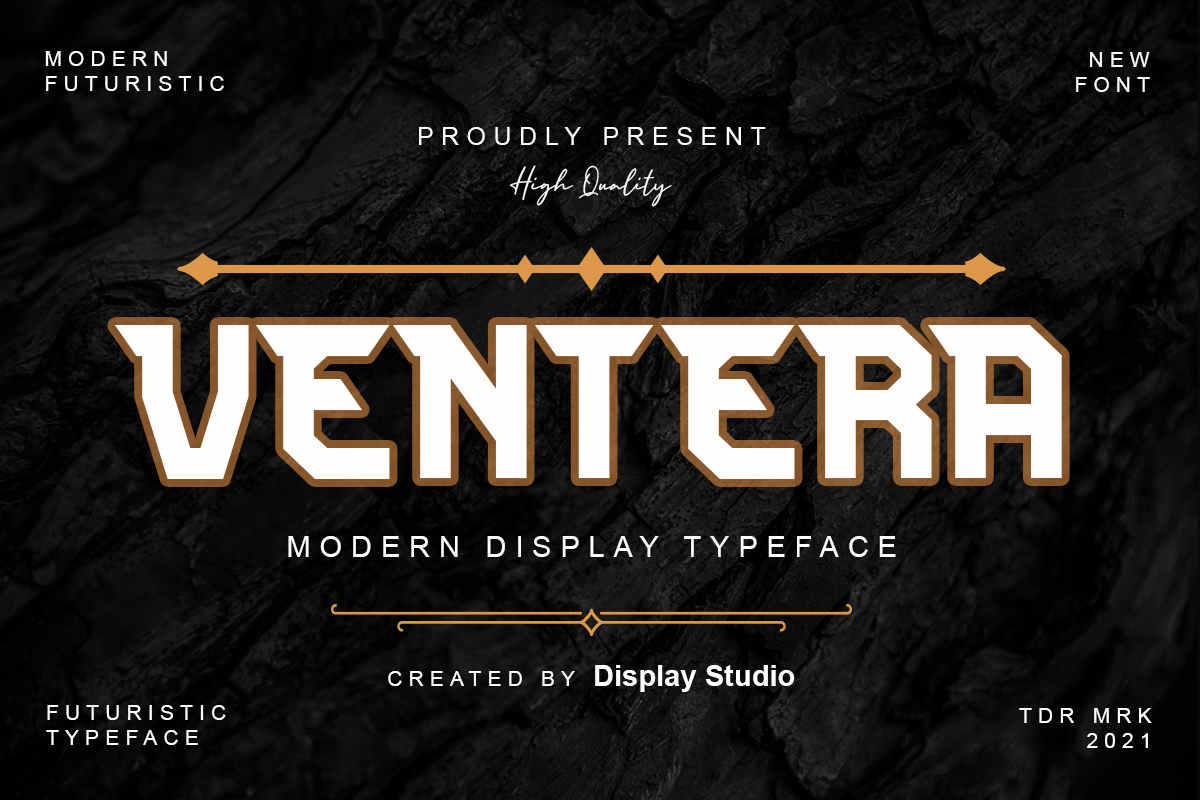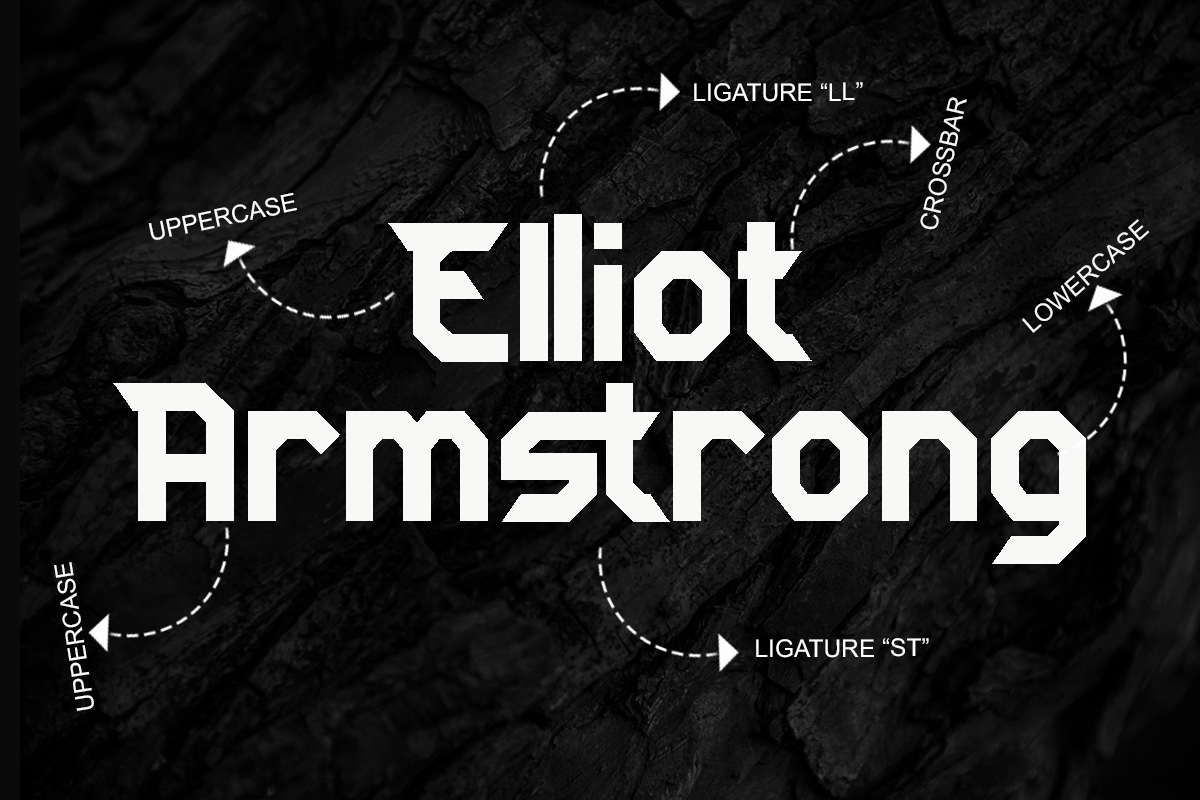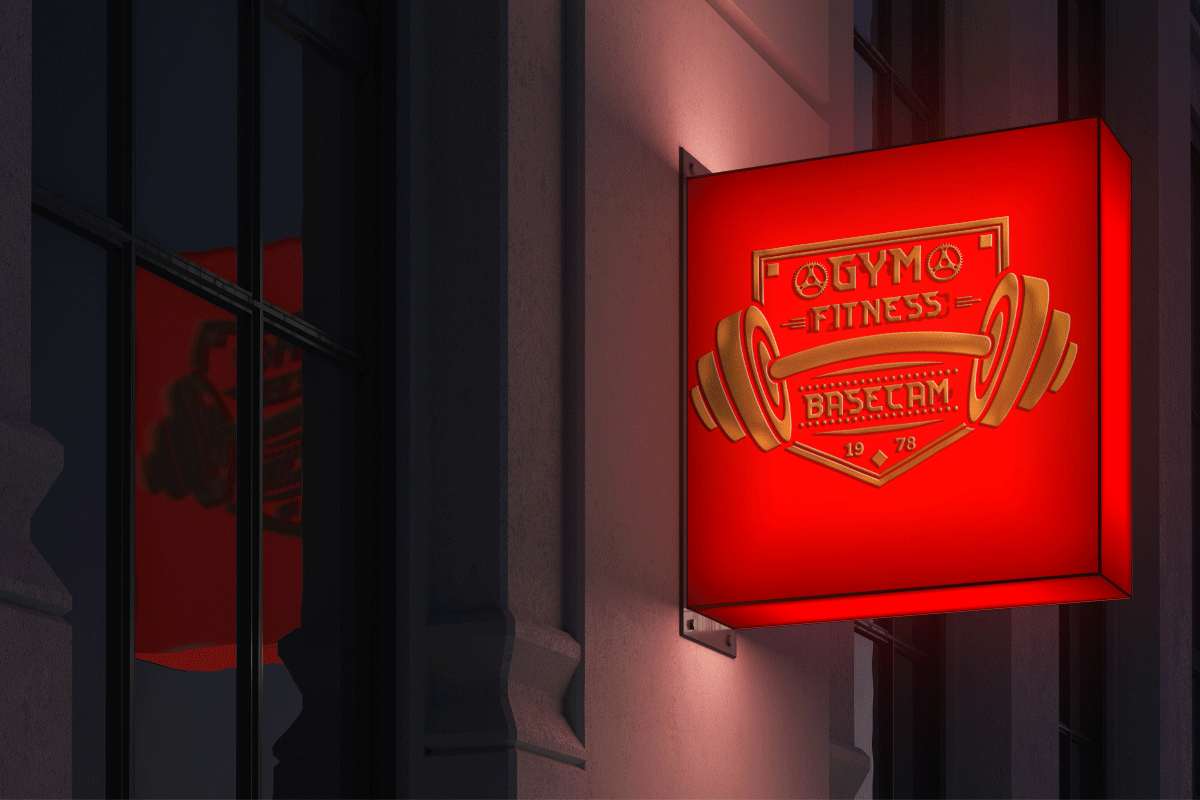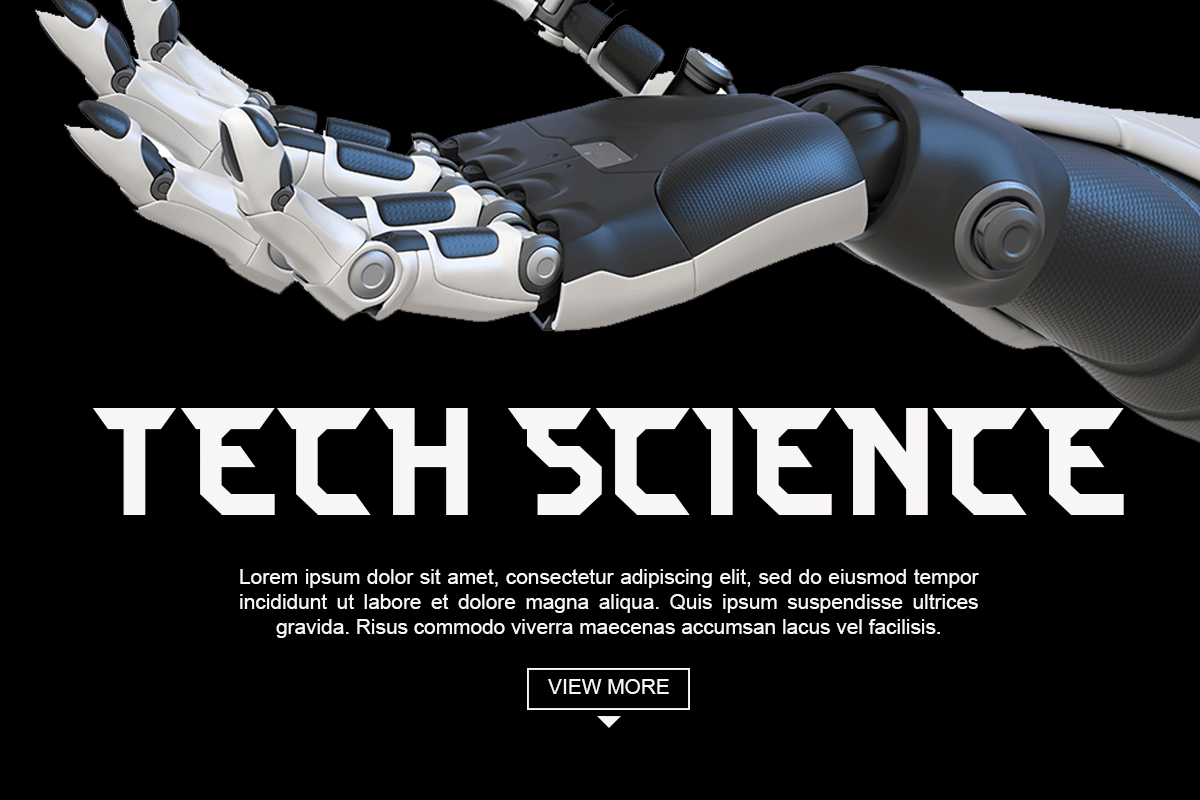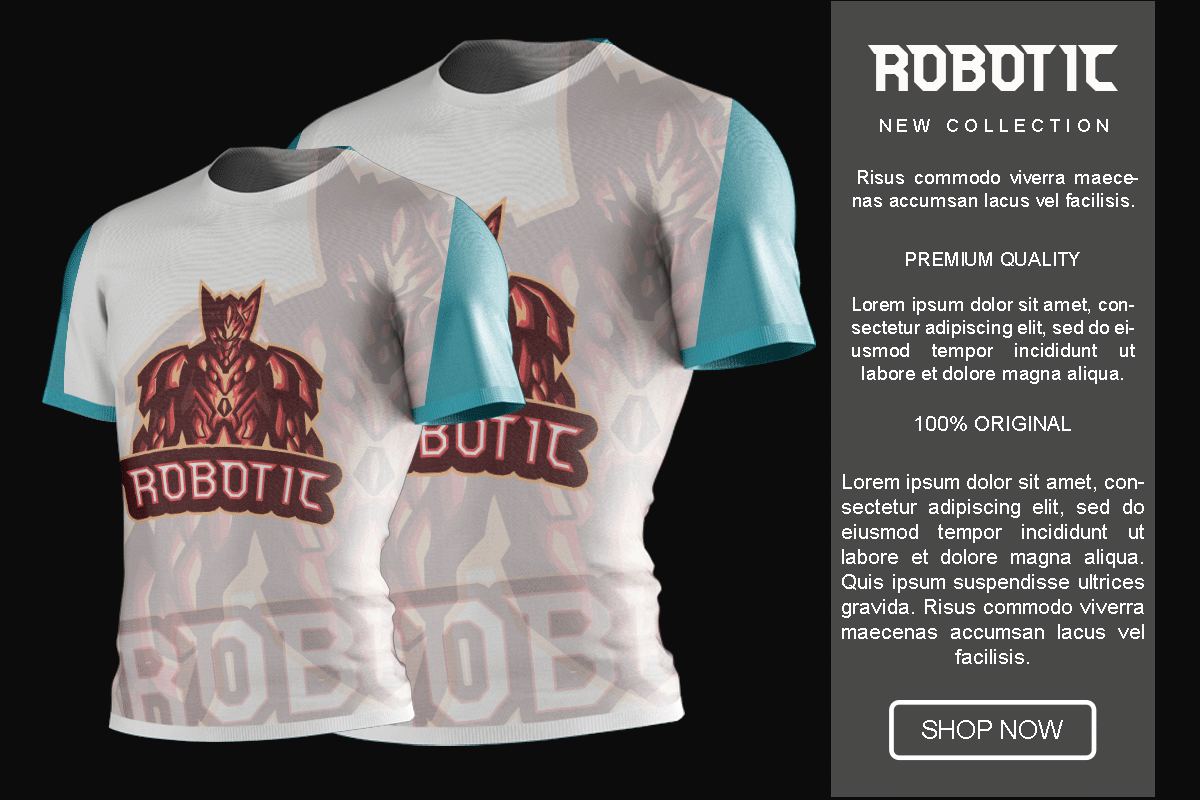
Ventera Free Font
Ventera Free Font emerges as a confident and contemporary display font. Regardless of the subject matter, this font is poised to become a valuable addition to your font repertoire, given its ability to elevate every creative endeavor it graces. This free typeface was designed by a talented Display Studio. If you like it don’t forget to check out the full version.